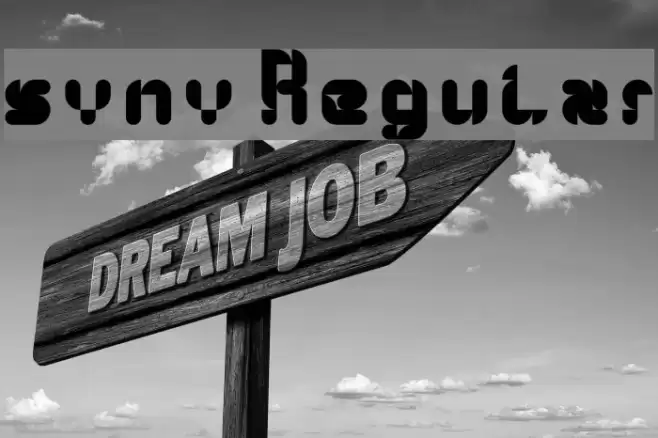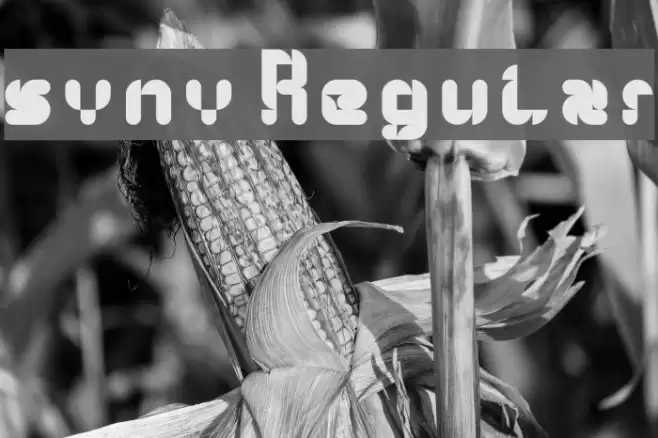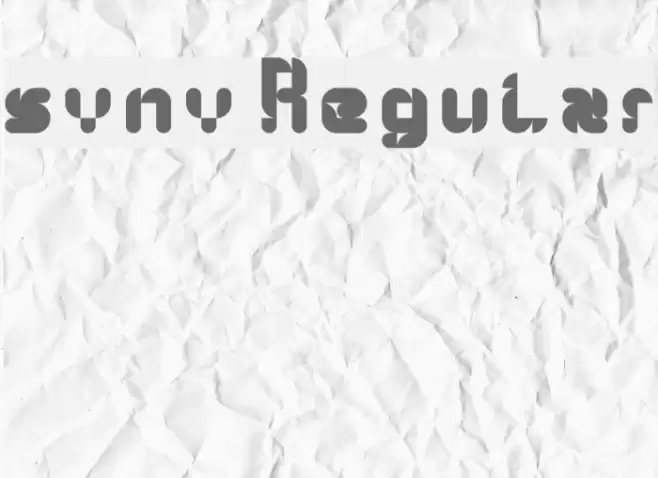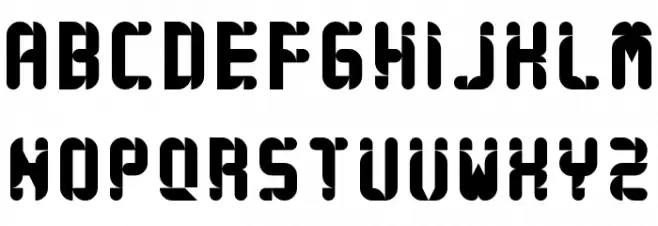
syny! Regular Font
syny! Regular Description
This font features a bold and modern design with a unique geometric style. Each character is crafted with a combination of solid and cut-out shapes, creating a striking visual effect. The uppercase and lowercase letters maintain a consistent design language, with rounded edges and a uniform thickness that adds to its contemporary appeal. The numbers and special characters follow the same aesthetic, ensuring a cohesive look across all text elements. This font's distinct style makes it ideal for projects that require a bold and eye-catching display.
A bold, geometric font with a modern and unique design from Uncategorized fonts.
- Proposed Projects: Ideal for branding, posters, headlines, and any project needing a bold, modern look.